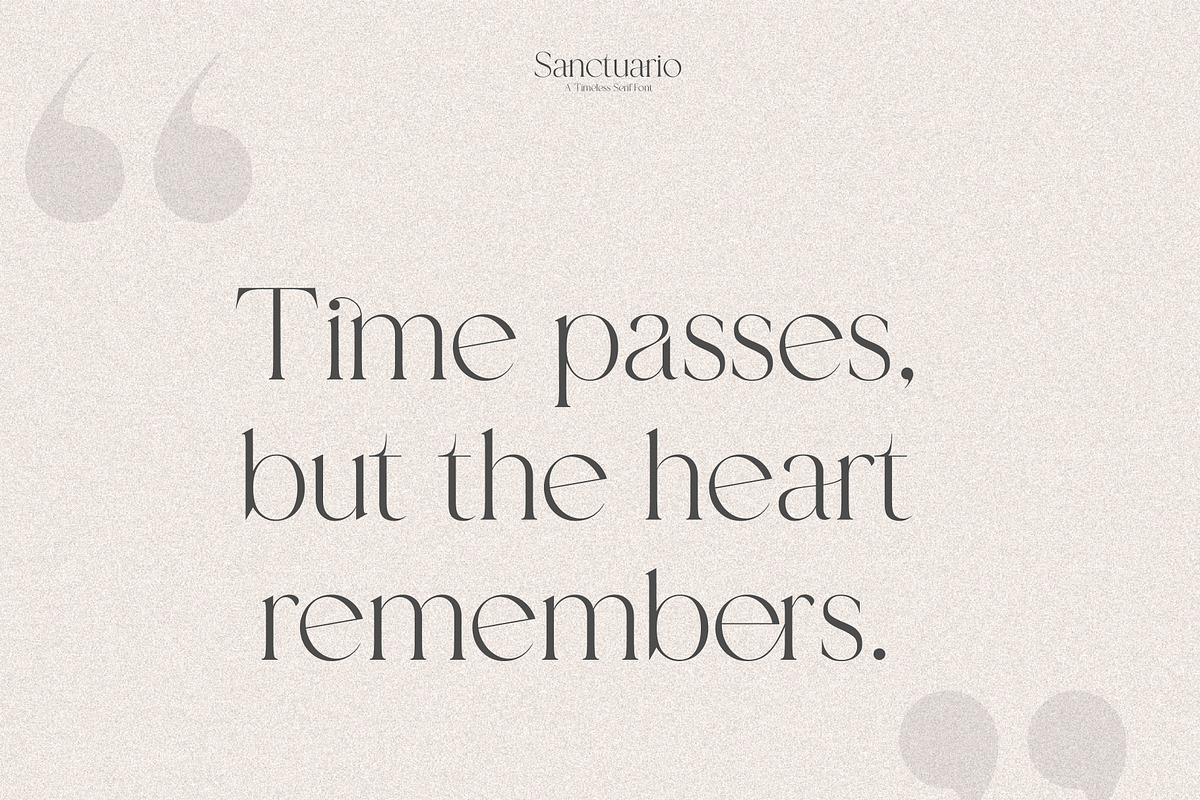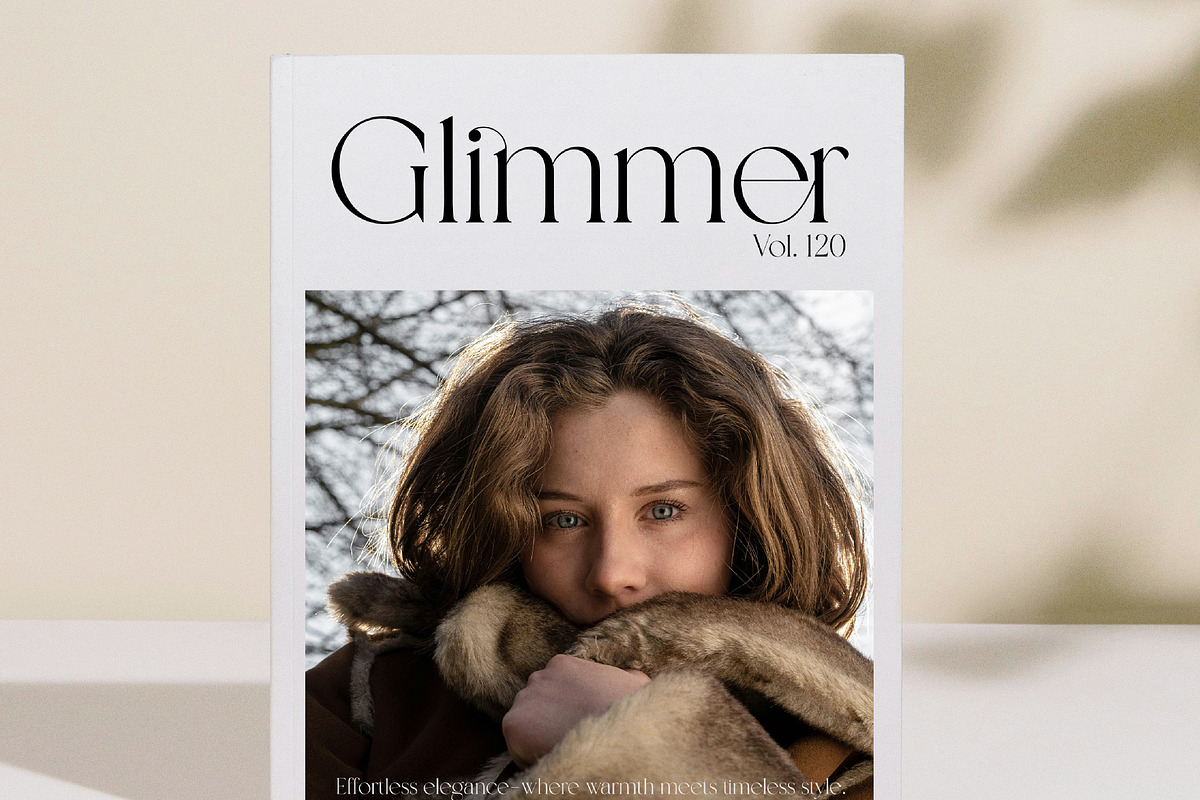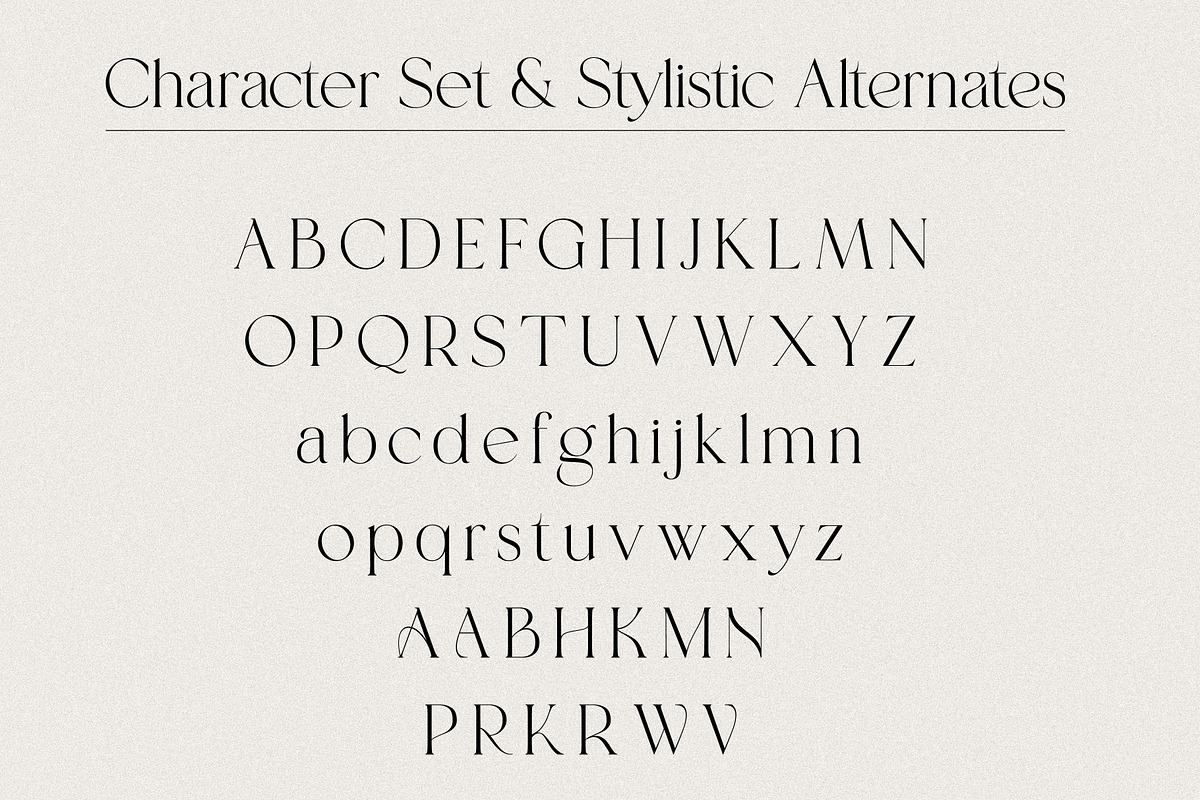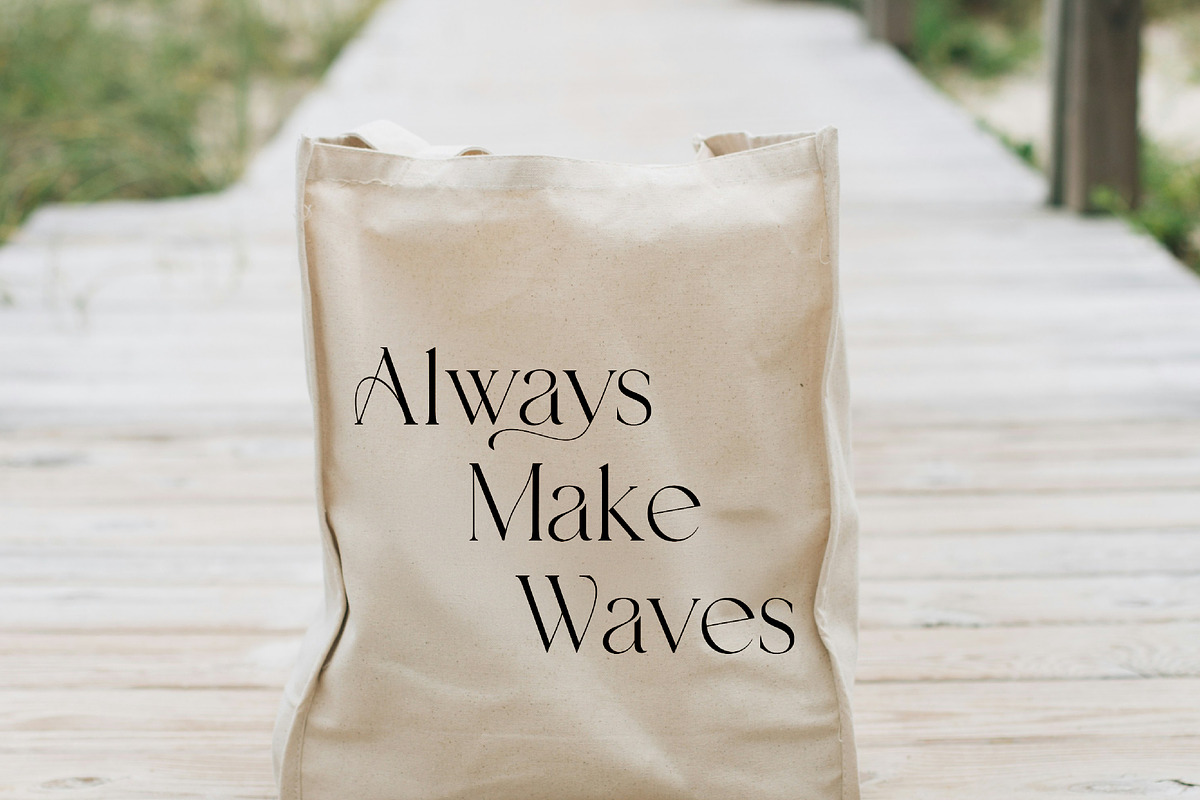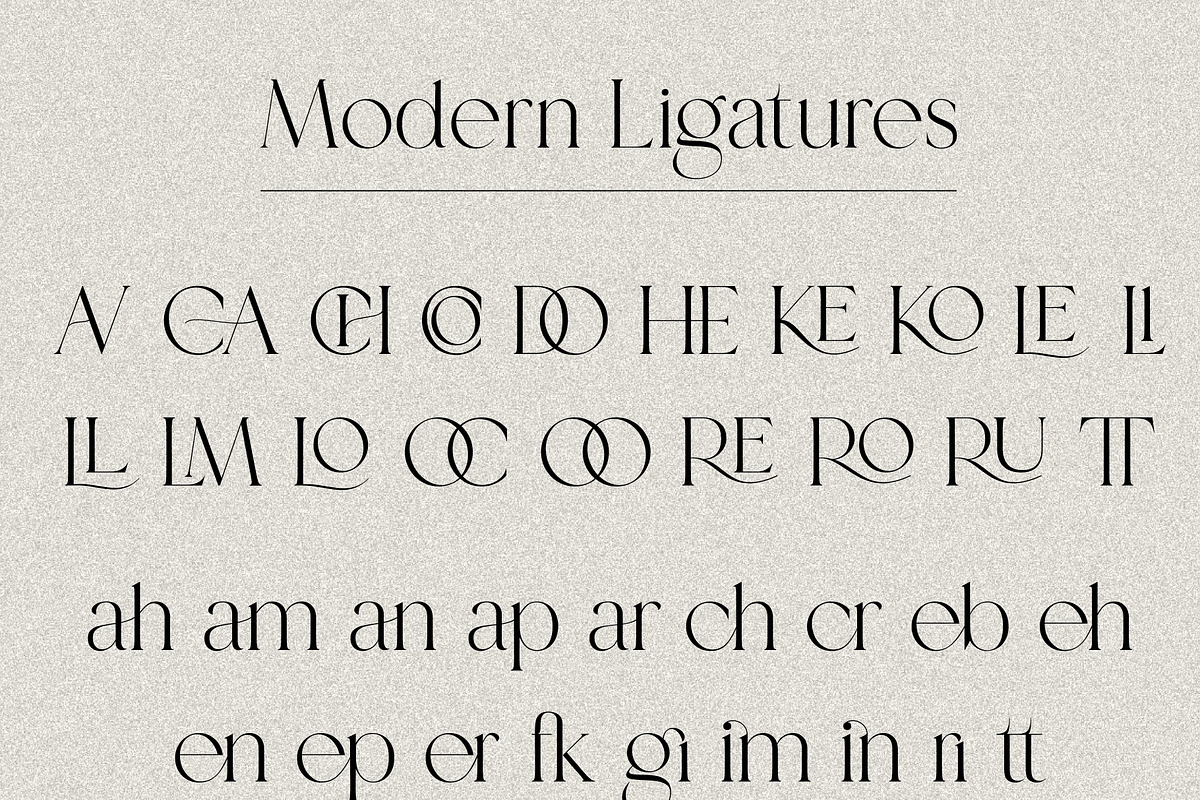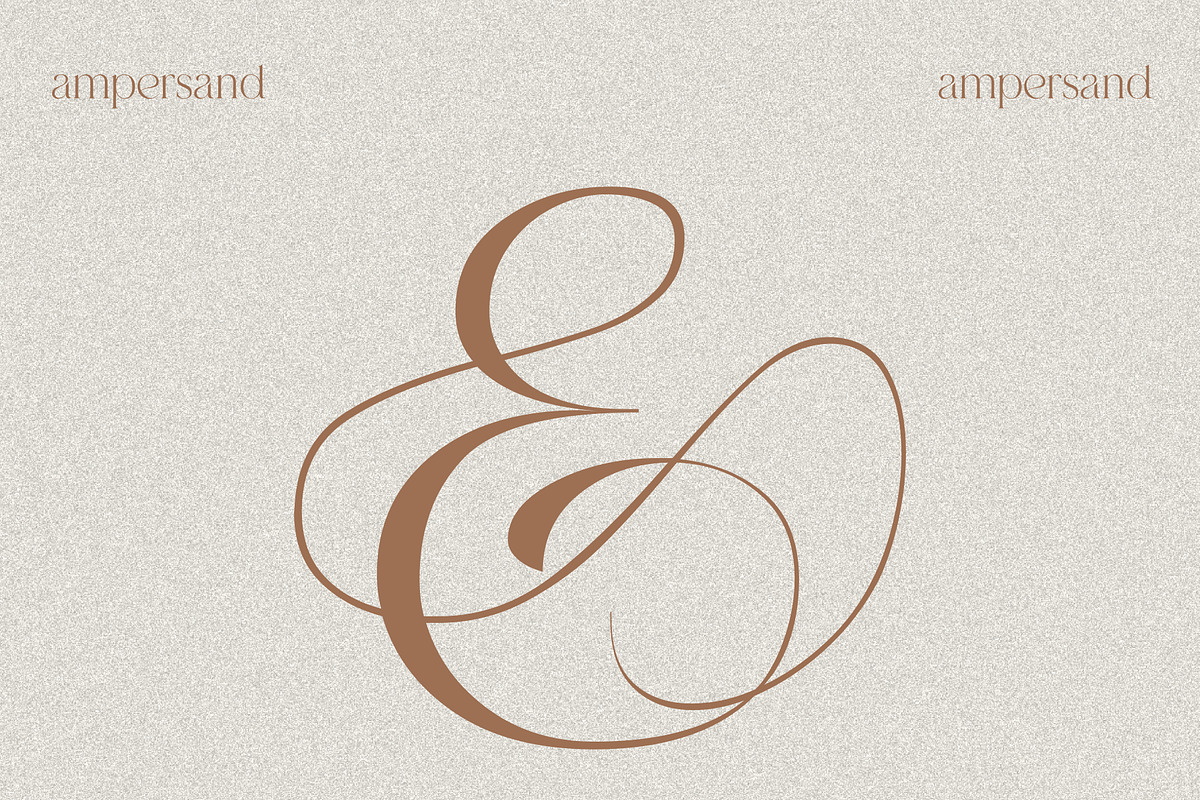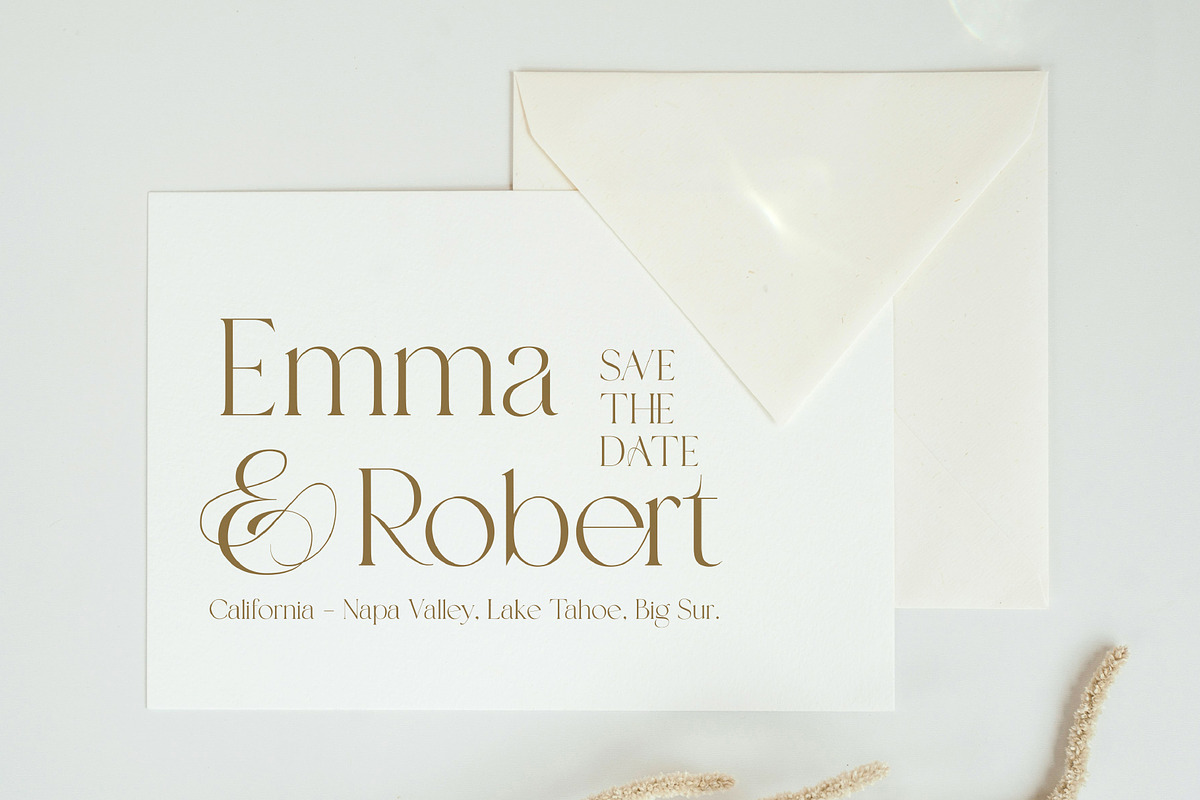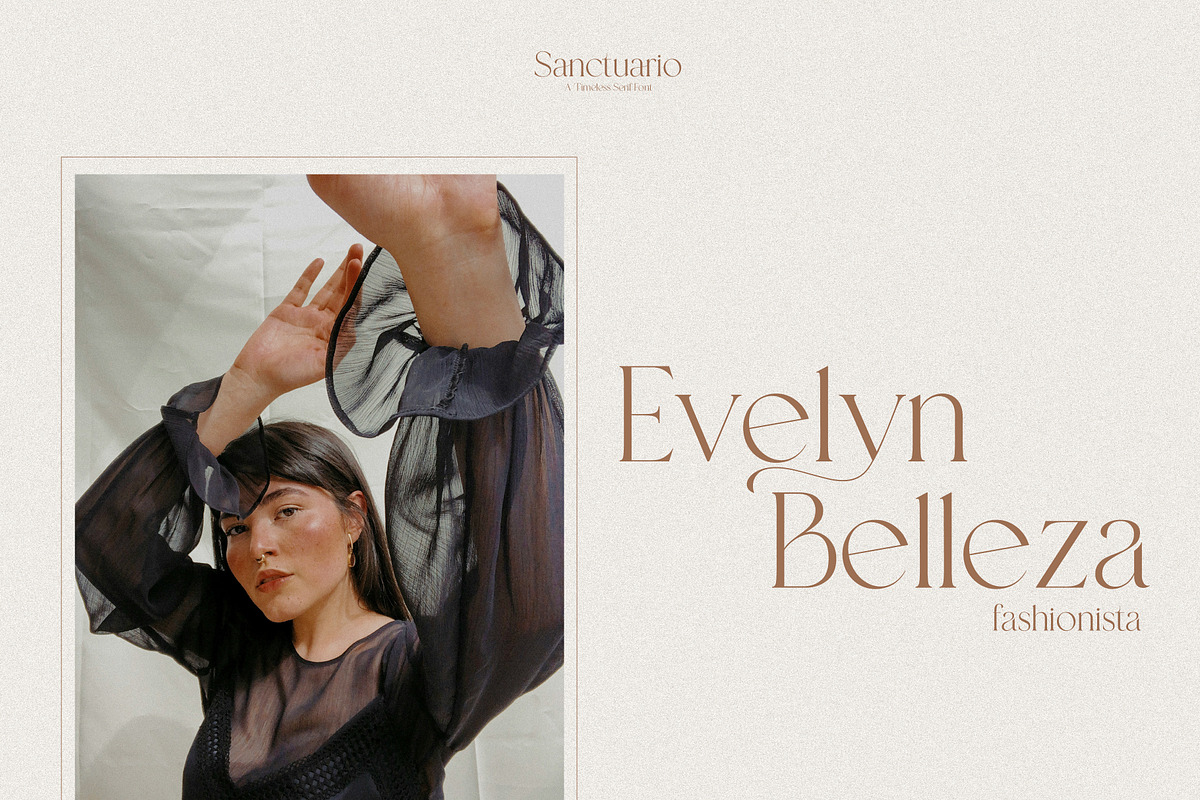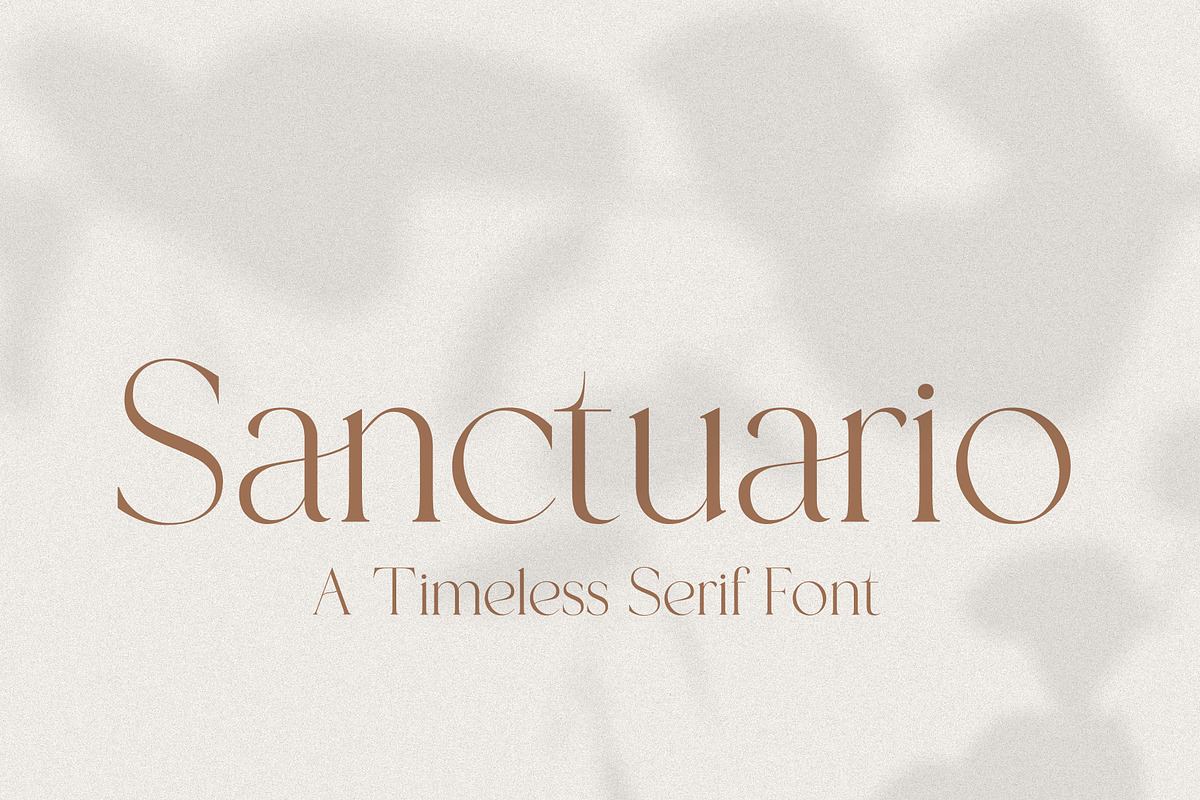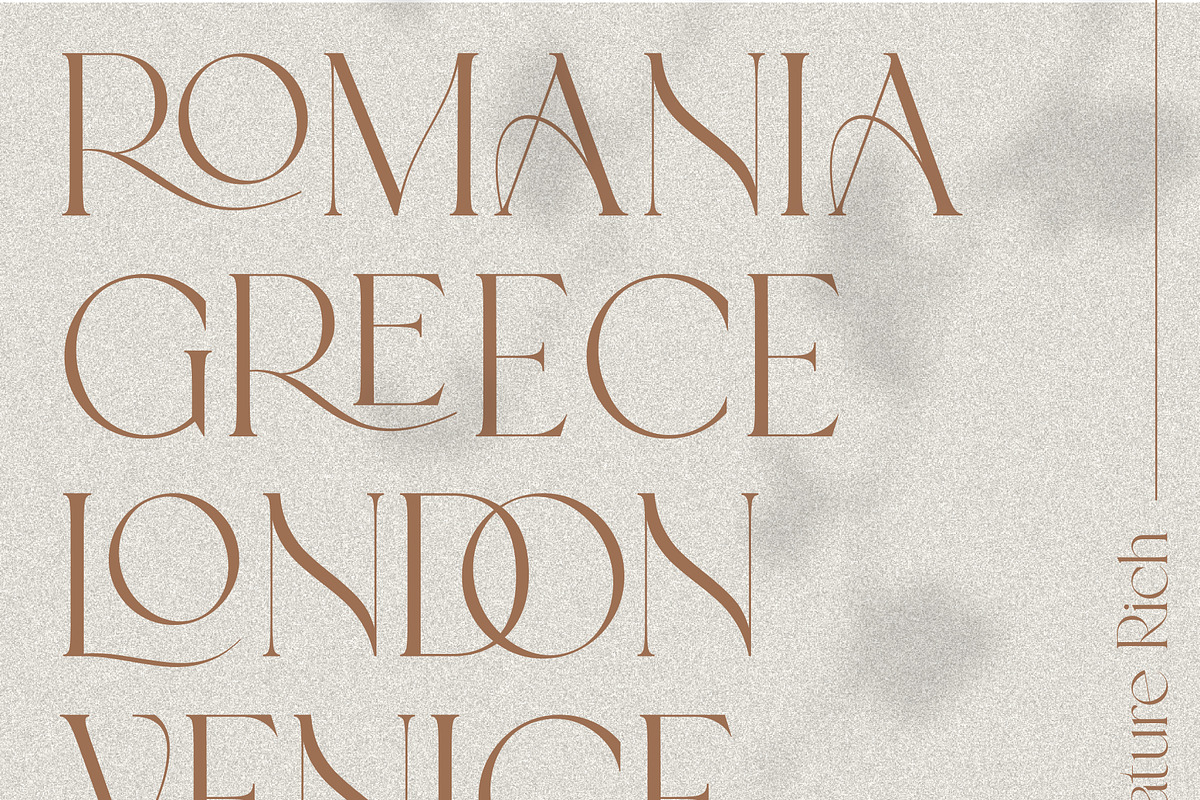
Sanctuario A Timeless Serif
Sanctuario is a refined and elegant font that seamlessly blends classic and modern aesthetics, embodying luxury, femininity, and sophistication. Featuring graceful letterforms with a mix of sharp serifs and soft curves, it achieves a perfect balance between strength and delicacy.
Rich in stylish and generous ligatures, this font adds a unique and custom-made feel to any composition. With high contrast between thick and thin strokes, Sanctuario commands attention while maintaining a graceful flow, ensuring both legibility and a luxurious presence.